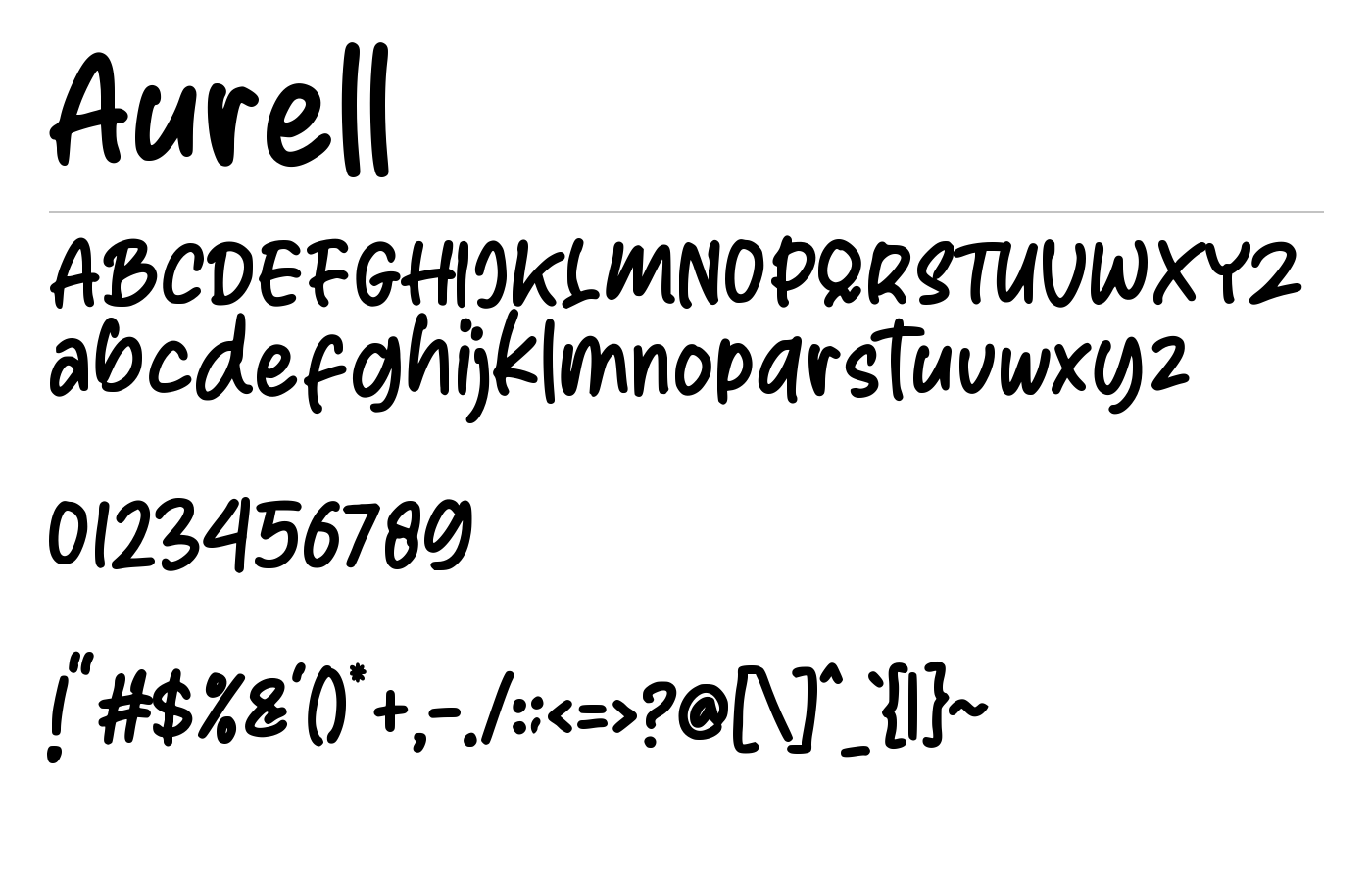
Aurell is a casual, handwritten sans serif font that features rounded, bold strokes with a lively and friendly personality. Its slightly irregular letterforms and moderate x-height give it an approachable, informal feel perfect for creative projects, playful branding, and personal communications. This font works well for headlines, logos, and packaging that seek a warm, human touch without sacrificing readability.
Aurell Font
About Aurell Font